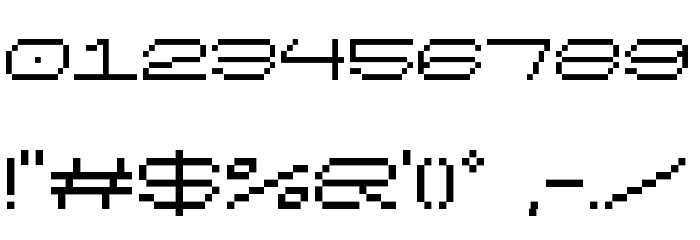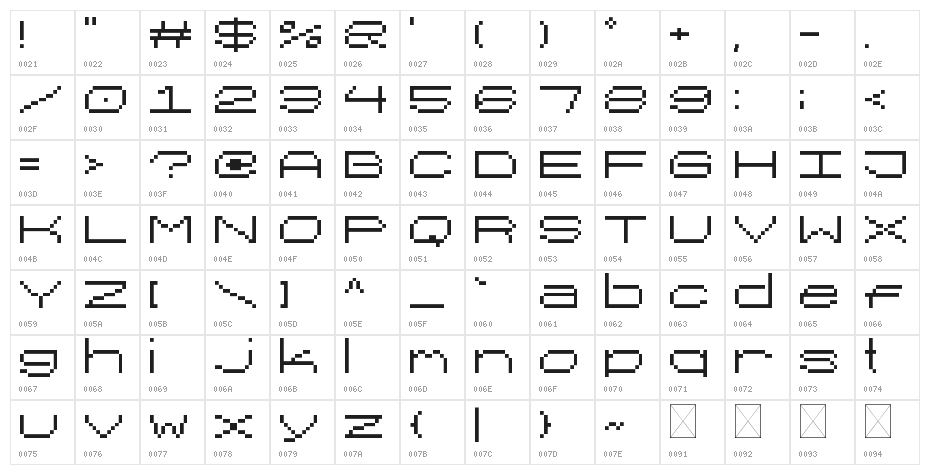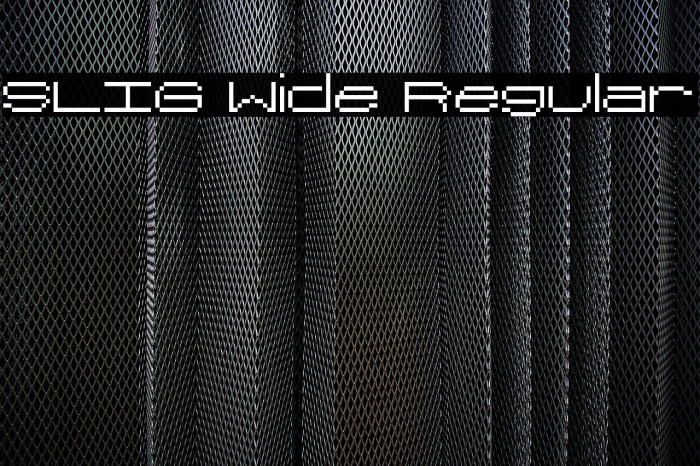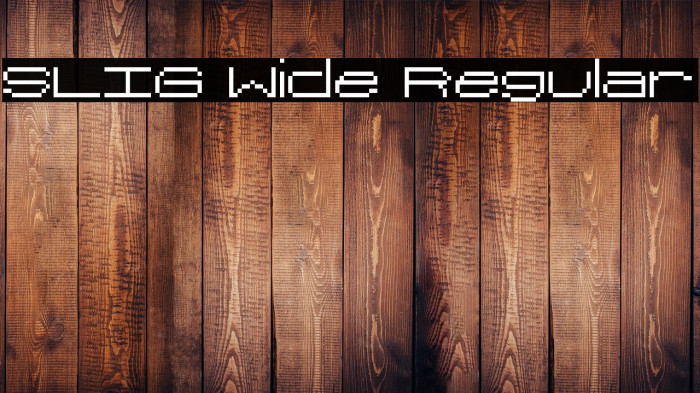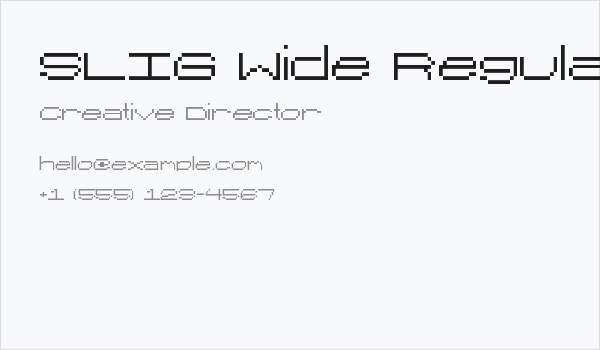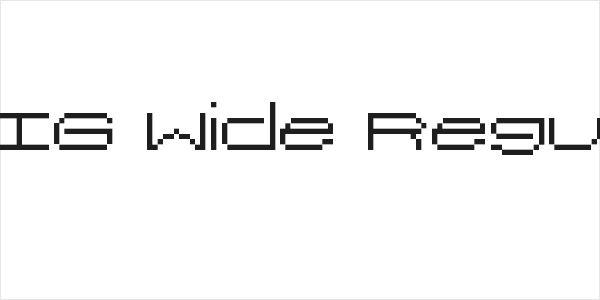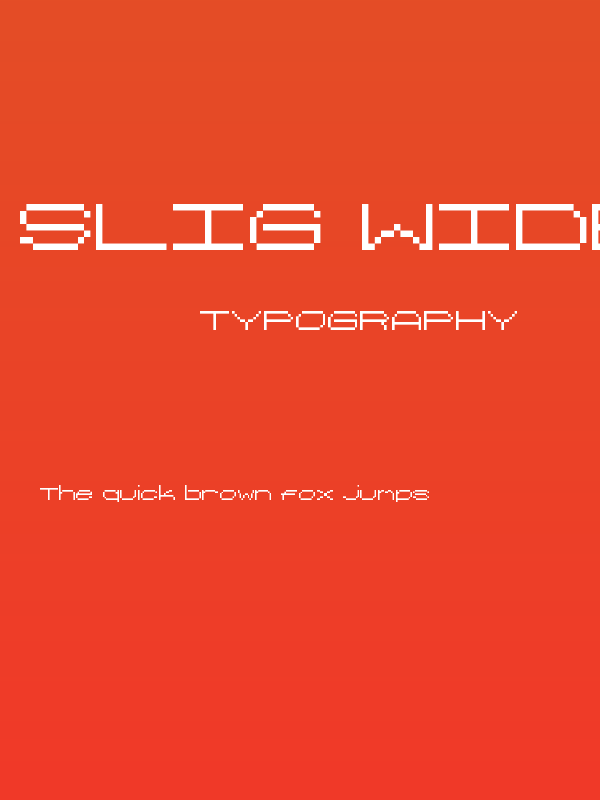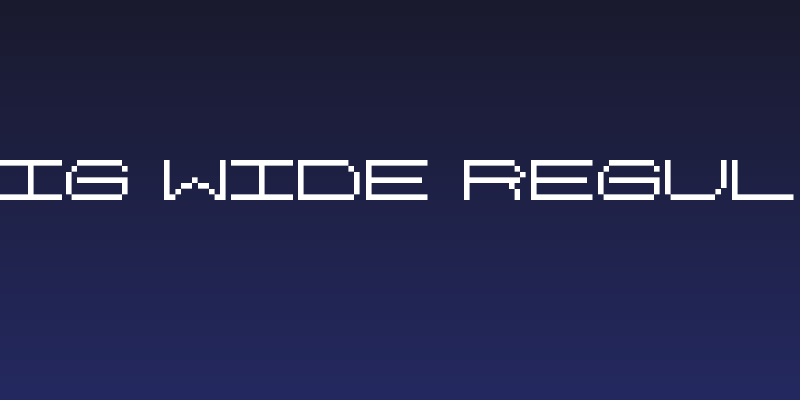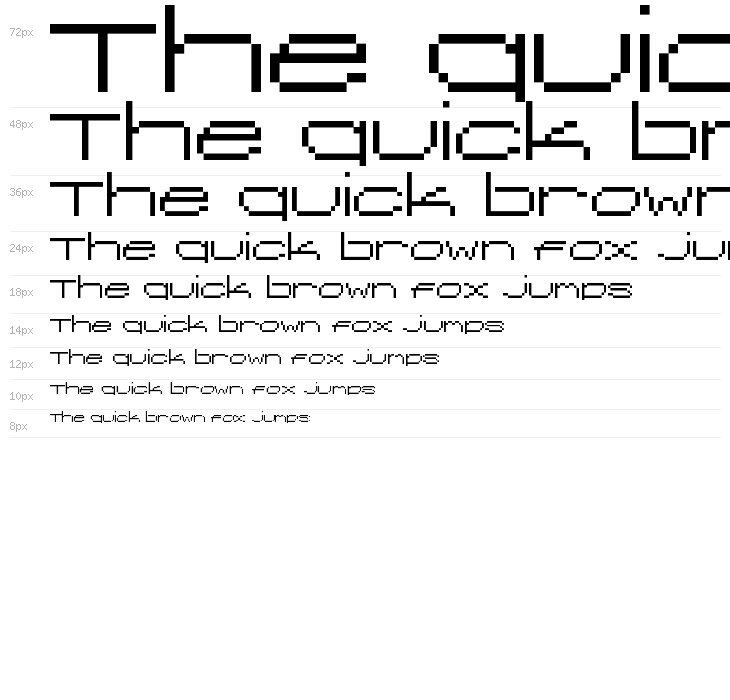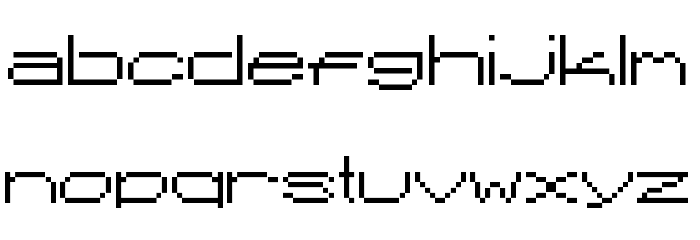
SLIG Wide Regular Font
SLIG Wide Regular Description
This font features a distinct pixelated style with a modern, digital aesthetic. Each character is constructed with a grid-like pattern, giving it a retro, video game feel. The uppercase and lowercase letters maintain a consistent width, contributing to a uniform appearance. The numerals and special characters follow the same design principles, ensuring a cohesive look across all glyphs. The font's geometric structure makes it highly legible at larger sizes, while its unique style adds a playful yet technical touch to any design.